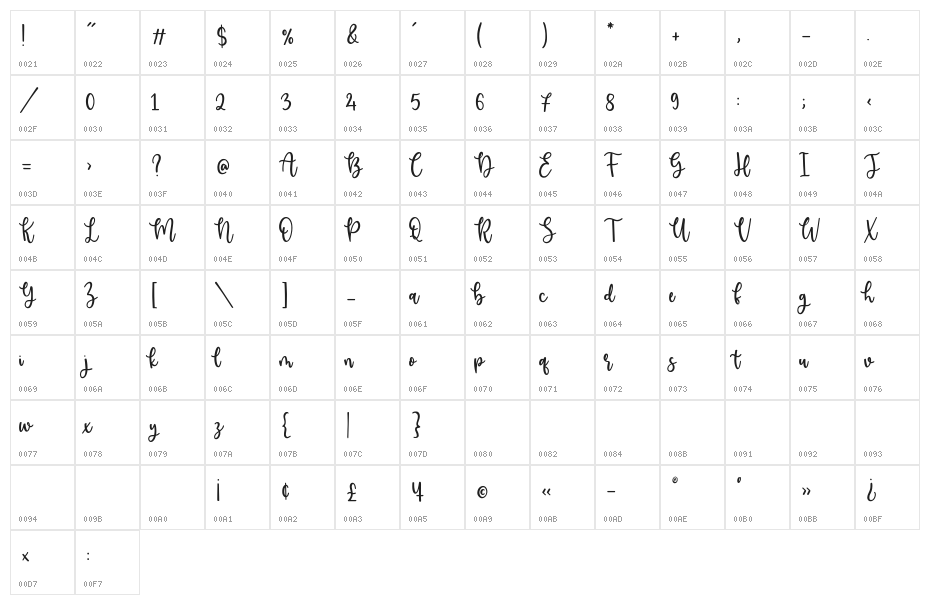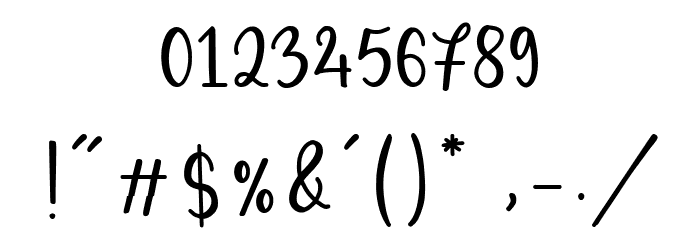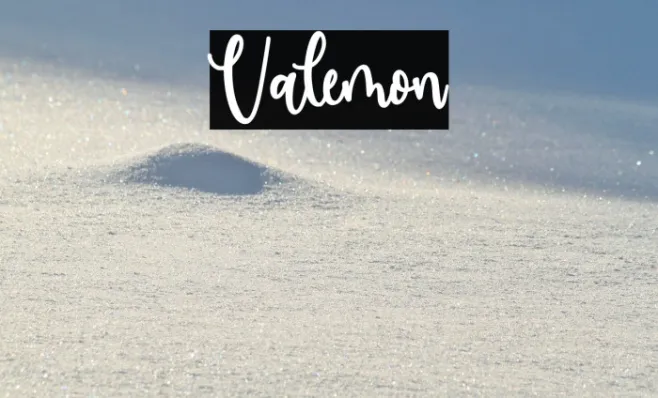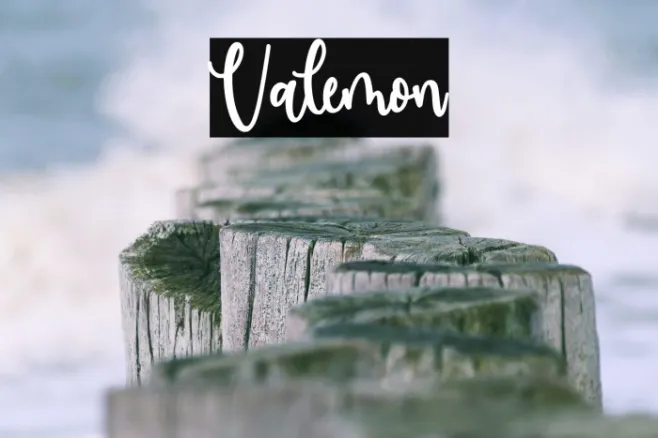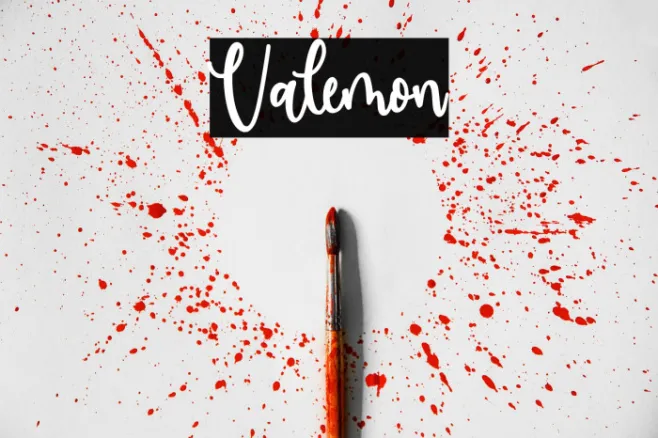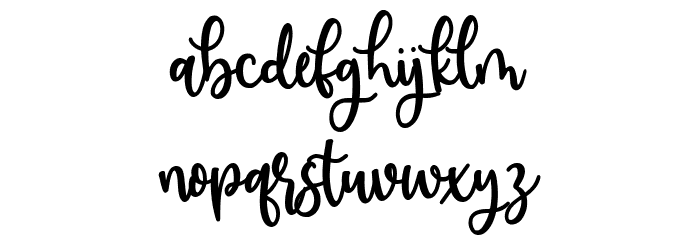
Valemon Font
Valemon Description
This font features a lively and flowing script style, characterized by its smooth, connected strokes and elegant curves. The uppercase letters are bold and expressive, with a playful yet sophisticated flair. The lowercase letters maintain a consistent flow, enhancing readability while retaining a personal, handwritten feel. Numbers and special characters are crafted with the same attention to detail, ensuring a cohesive look across all text. The overall design is both modern and timeless, making it suitable for a wide range of applications where a touch of elegance and personality is desired.